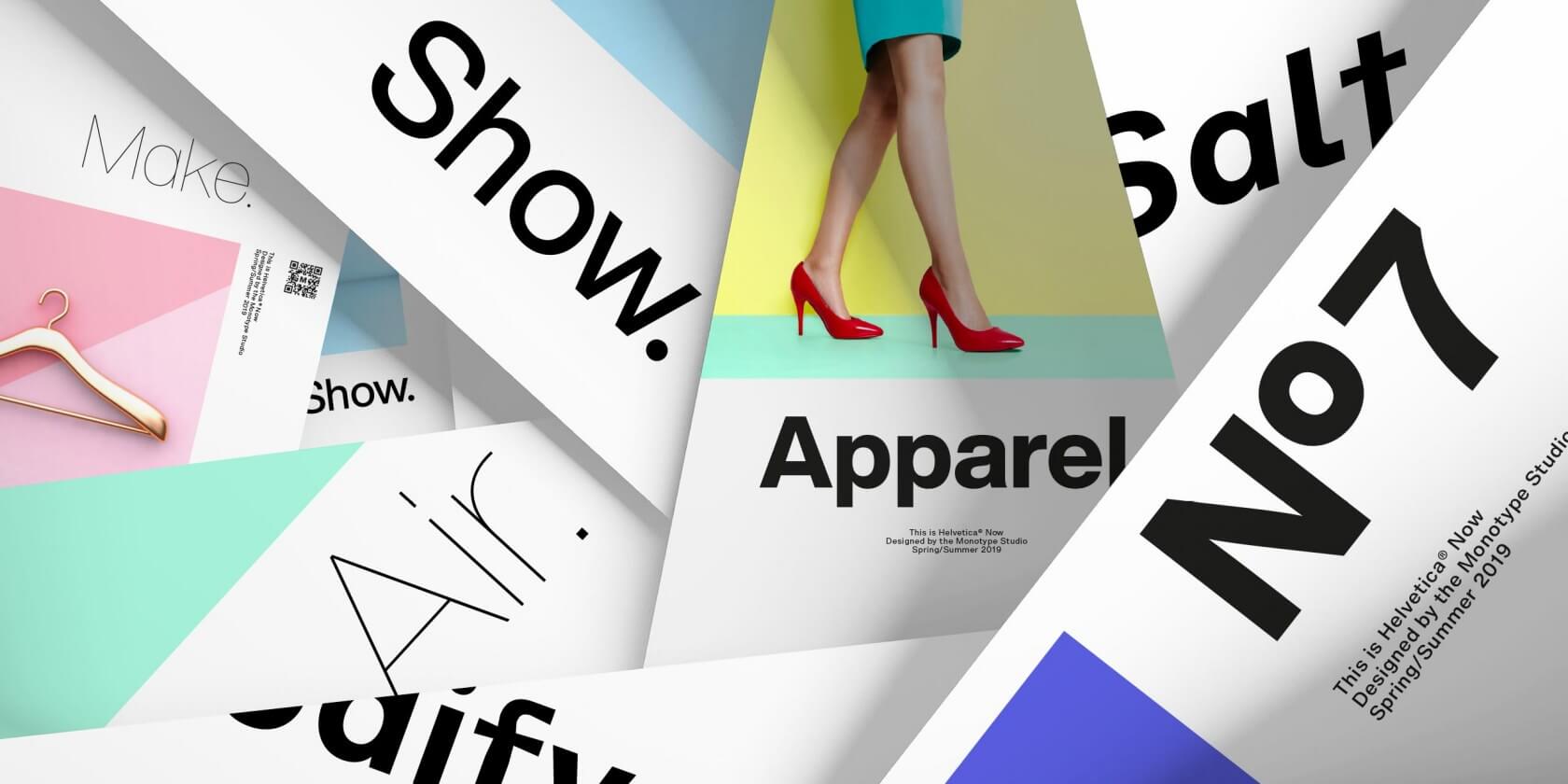
One of the most popular fonts in the world, Helvetica, is getting its first major overhaul in several decades. Indeed, as Gizmodo points out, the last time the font was upgraded was back in 1983 with the "Neue Helvetica" update.
Now, the font is called "Helvetica Now," a name Monotype (the company responsible for licensing it) hopes will act as a "new chapter" in the story of the "best-known typeface" of all time. While those are some pretty bold claims, Helvetica Now does aim to solve some of the problems its predecessor faced in the modern world.
I'm no font history expert myself, but Gizmodo claims that previous versions of Helvetica had issues with kerning (letter spacing) and legibility on smaller screens, problems that have become all the more pronounced now with the rise of consumer smartphones and tablets. Monotype's solution with Helvetica Now is to provide editors, writers, and brands with three main font size variants: Helvetica Now Micro, Text, and Display.
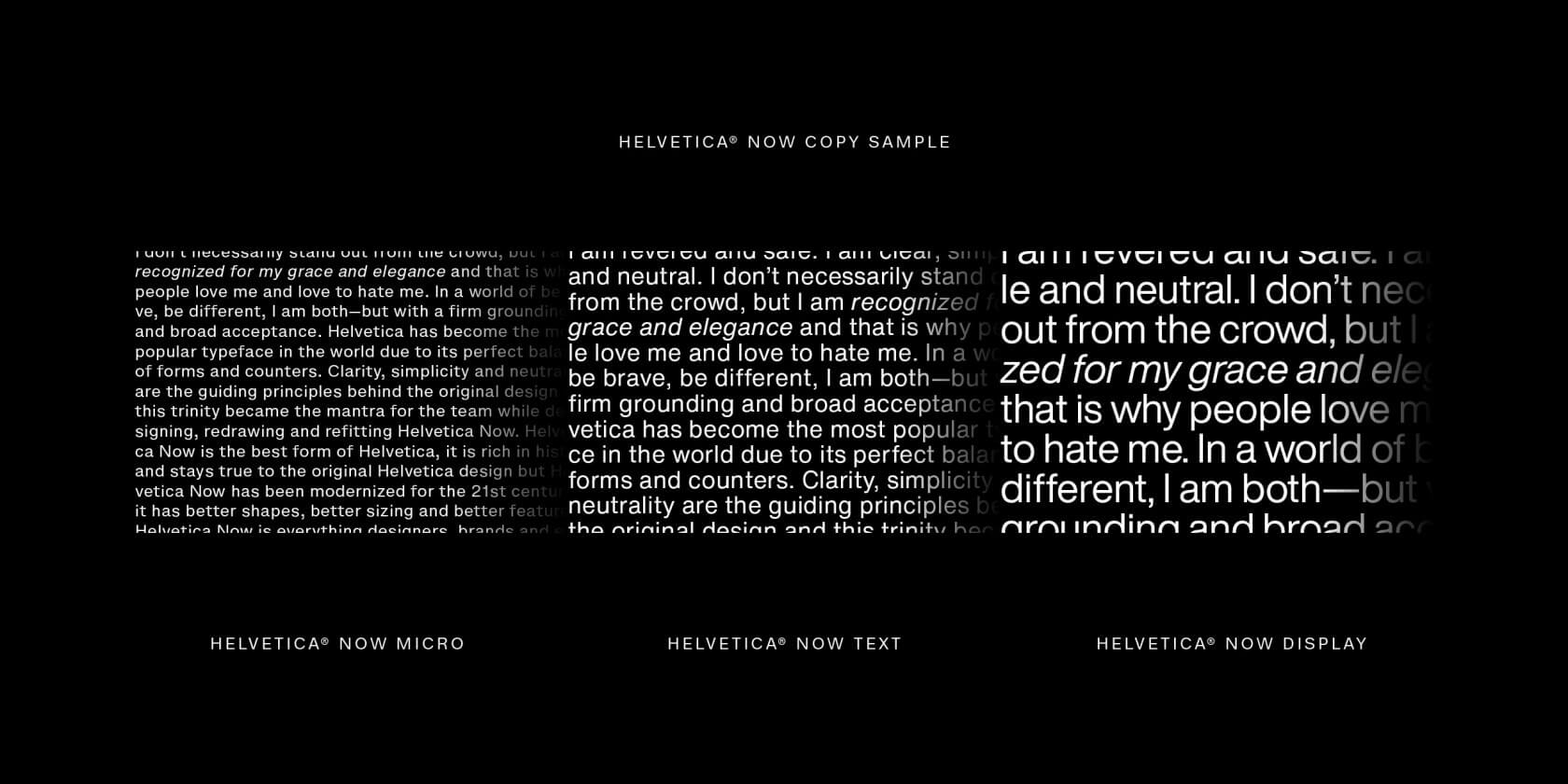
Display is intended for headlines, advertisements, and other areas where bigger, more "in-your-face" text is ideal. Helvetica Now Text is meant for just about anything else - articles, FAQ pages, forums, you name it. Micro, as the name suggests, is useful in the same areas as Text, but on smaller screens.
If you thought designing new versions of existing fonts was a simple process, think again. Monotype says Helvetica Now is the result of roughly five years of research and collaborative development among "dozens" of designers and engineers within the Monotype Studio Foundry.
Alternatively, you can visit Monotype's Helvetica Now reveal page and interact with the font directly - the page is essentially a giant text sandbox that you can edit to your heart's content.